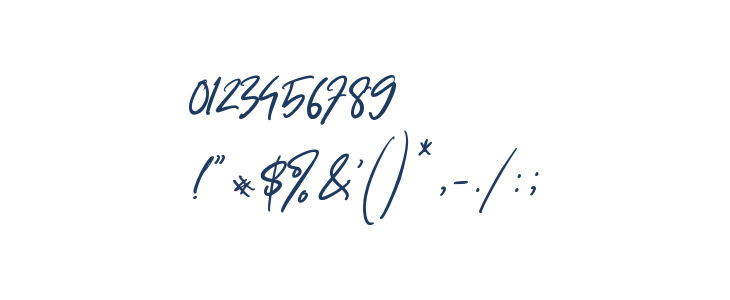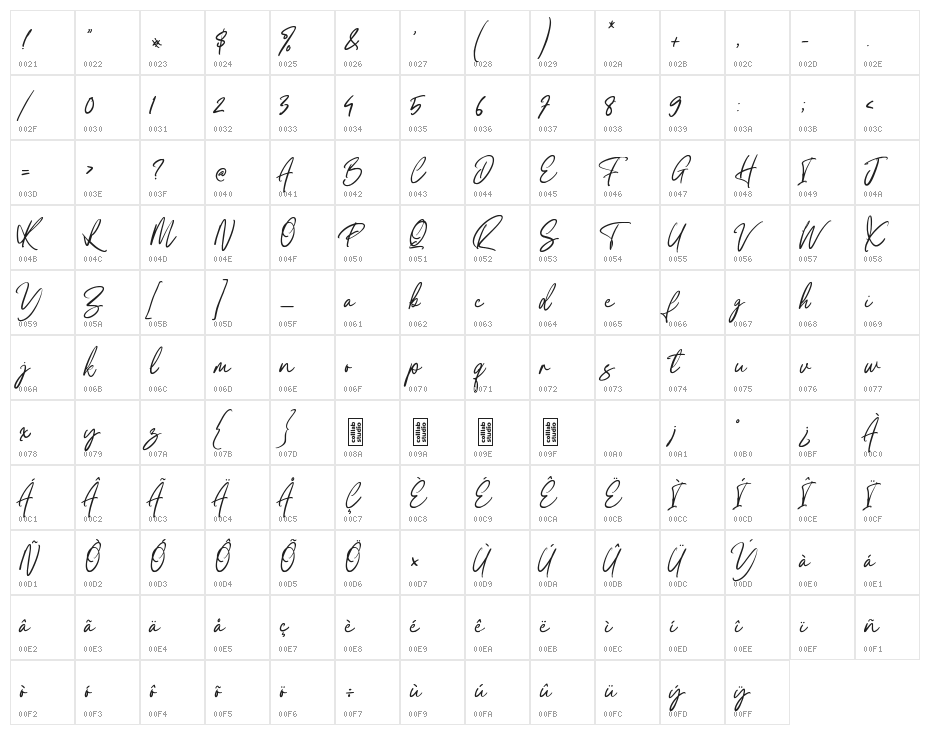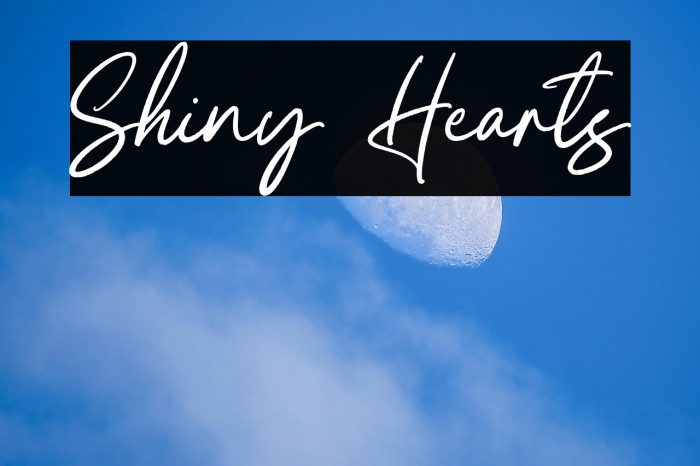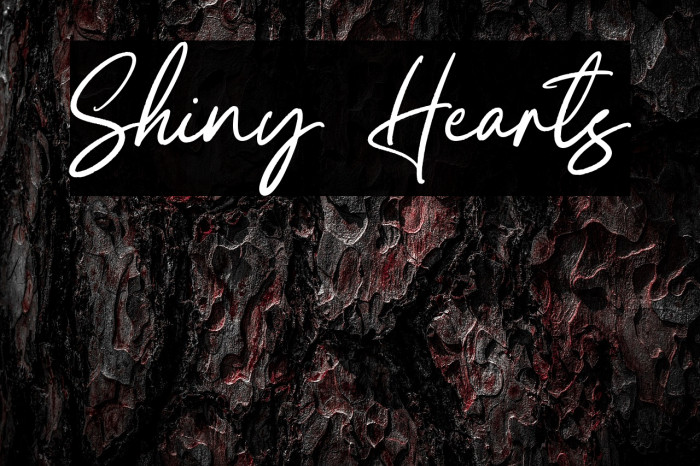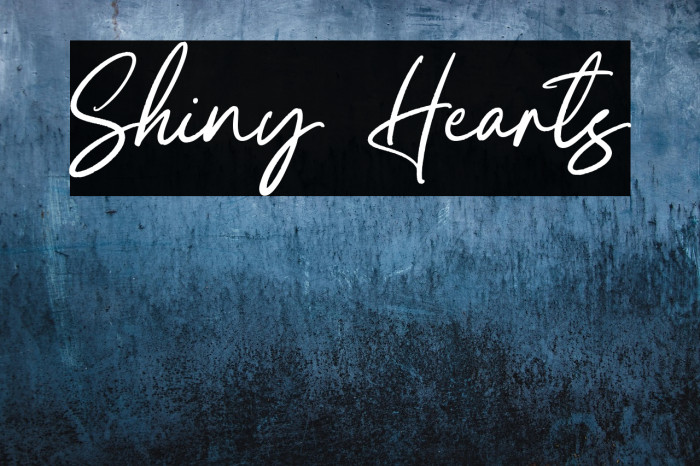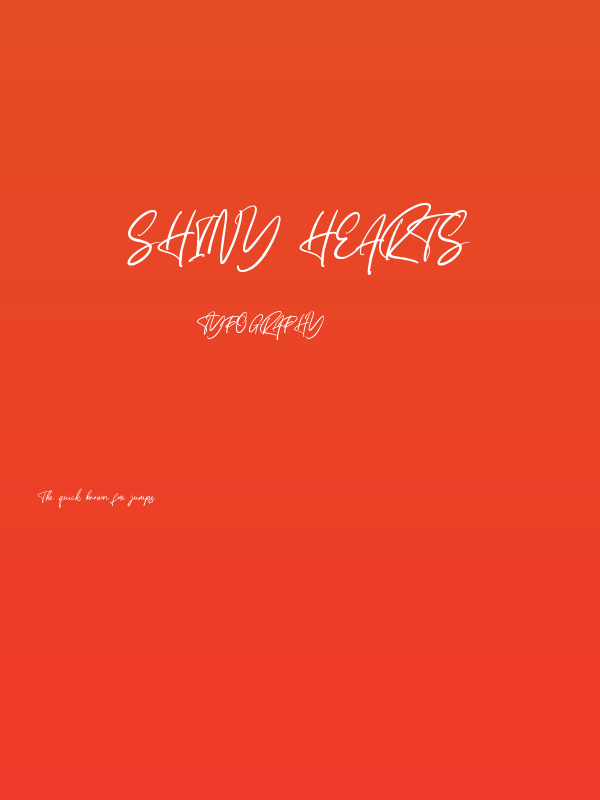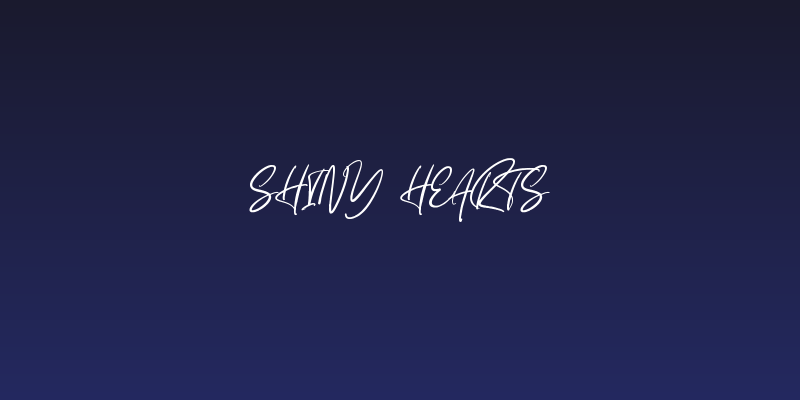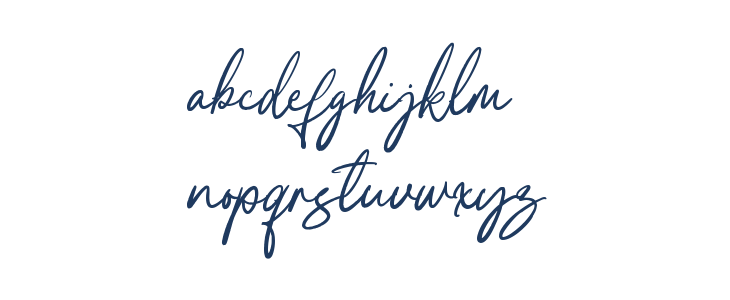
Shiny Hearts Font
Shiny Hearts Description
This font exudes a lively and dynamic energy with its fluid, cursive style. The characters are crafted with a natural, handwritten feel, featuring elegant loops and swift strokes that convey a sense of movement and spontaneity. The uppercase letters are bold and expressive, while the lowercase letters maintain a consistent flow, enhancing the overall harmony of the design. Numbers and special characters are seamlessly integrated, maintaining the font's cohesive aesthetic. This font's playful yet sophisticated appearance makes it ideal for creative projects that require a personal touch.
| Use Case | Logos, Invitations, Social Media |
| Proposed Projects | Ideal for wedding invitations, greeting cards, branding, and social media graphics. |